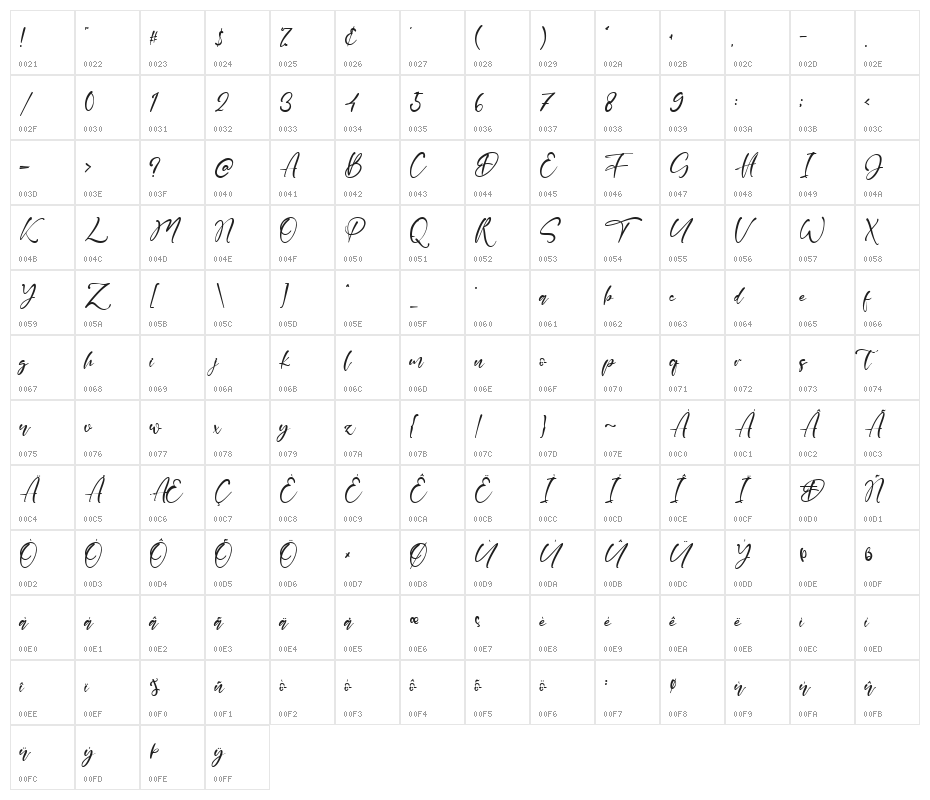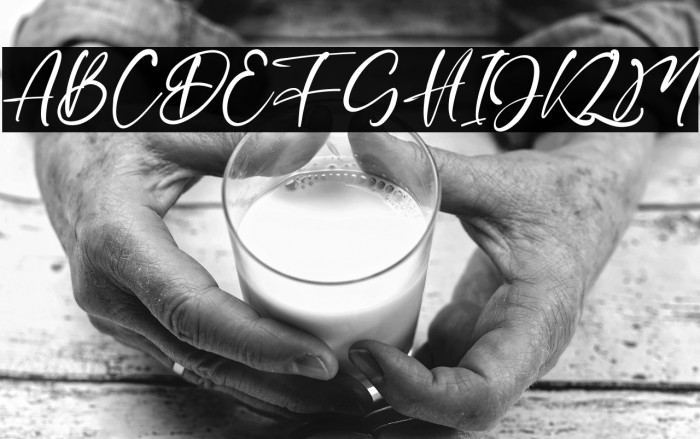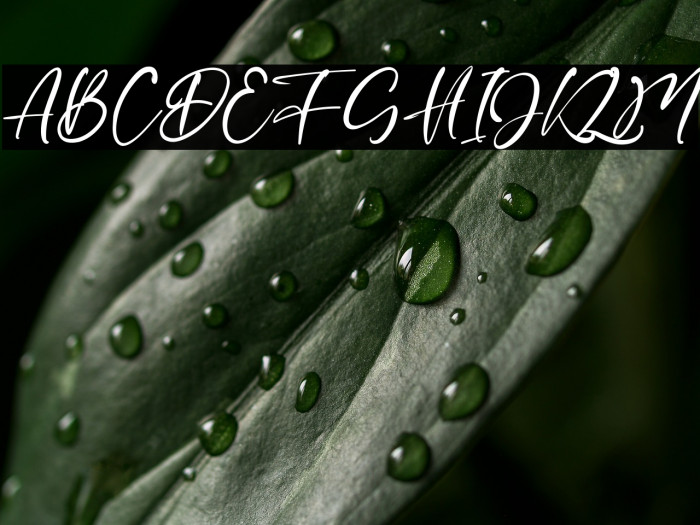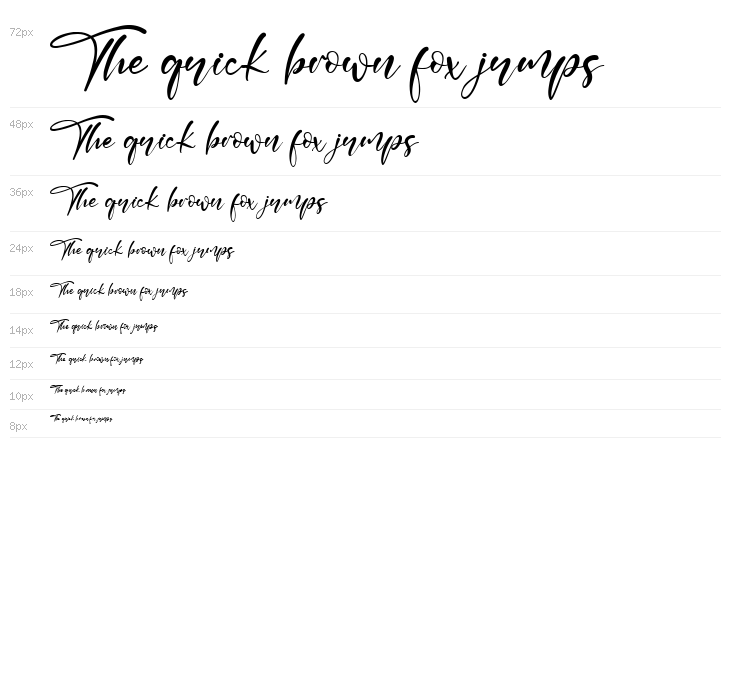
Fantasia Font
Fantasia Description
This font exudes elegance and fluidity, characterized by its cursive script style. The letters are interconnected with smooth, flowing strokes, giving it a handwritten appearance. The uppercase letters are bold and prominent, while the lowercase letters maintain a consistent flow, enhancing readability. The numerals and special characters are crafted with the same attention to detail, ensuring a cohesive look across all elements. The overall design is sophisticated, making it suitable for projects that require a personal touch or a sense of luxury.
| Proposed Projects | Ideal for wedding invitations, greeting cards, branding, and luxury product packaging. |